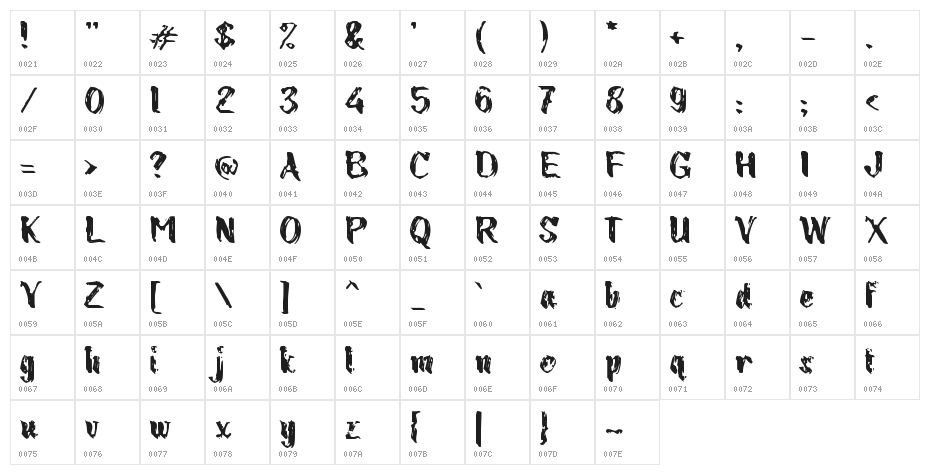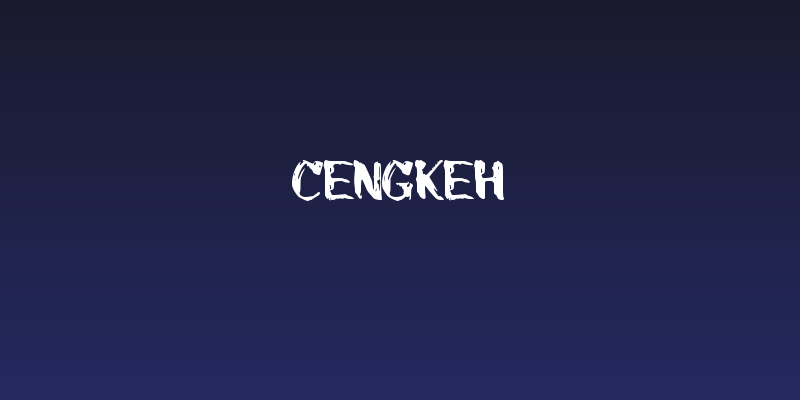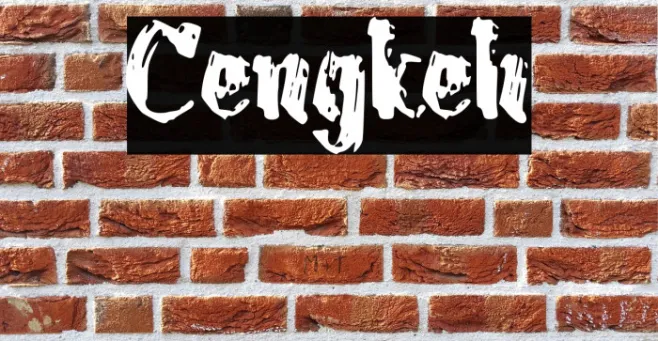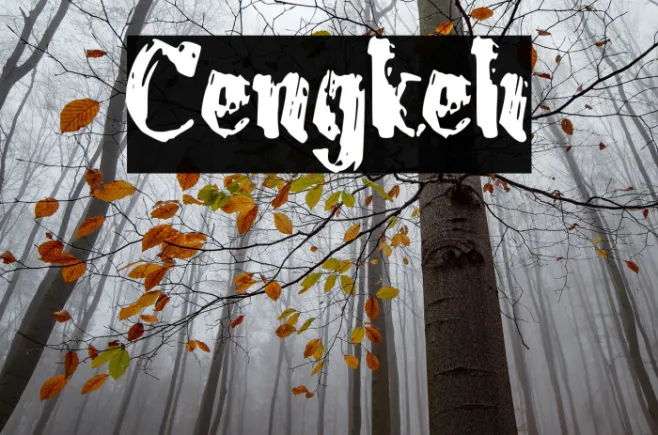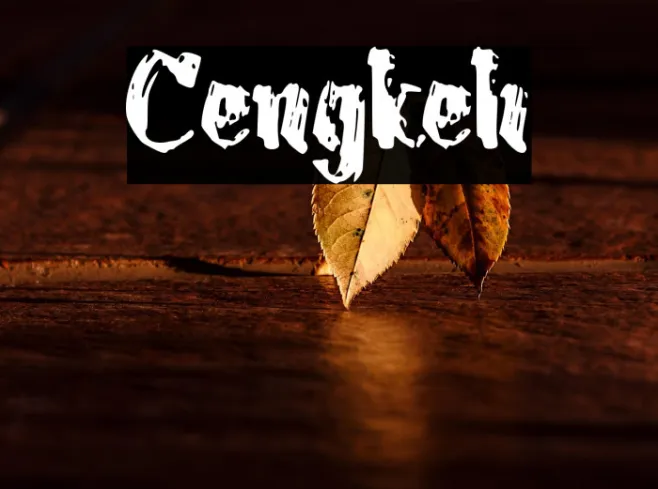
Cengkeh Font
Cengkeh Description
This font exhibits a bold and expressive style, characterized by its rough, brush-like strokes that give it a dynamic and energetic appearance. The letters are irregular and have a hand-painted feel, with uneven edges and a slightly distressed look. This creates a sense of movement and spontaneity, making it ideal for projects that require a strong visual impact. The uppercase and lowercase letters maintain a consistent style, while the numbers and special characters complement the overall aesthetic. The font's unique texture and artistic flair make it suitable for creative and unconventional designs.